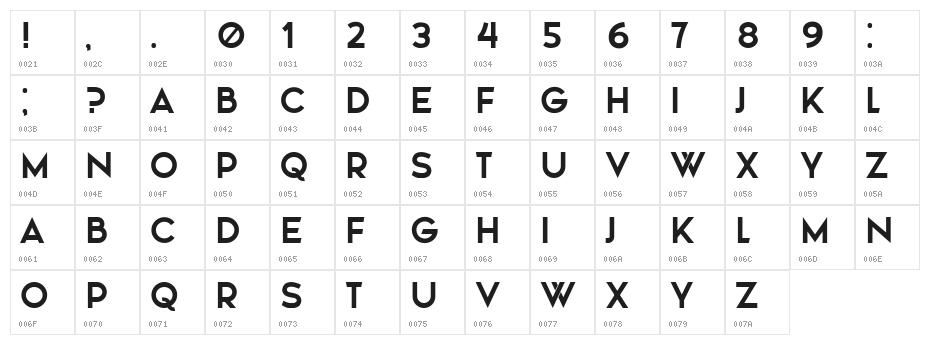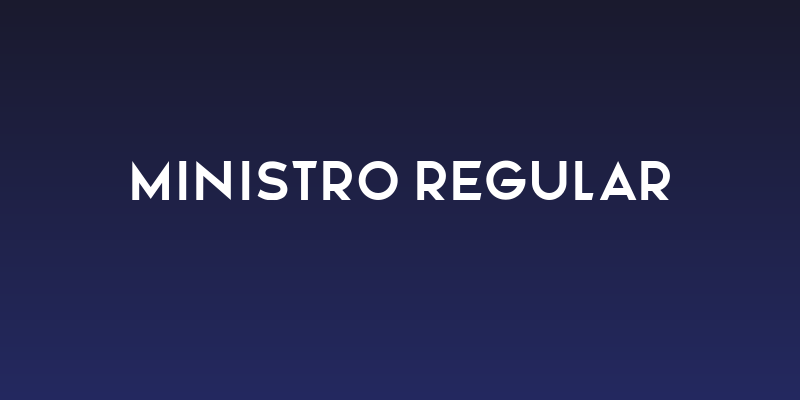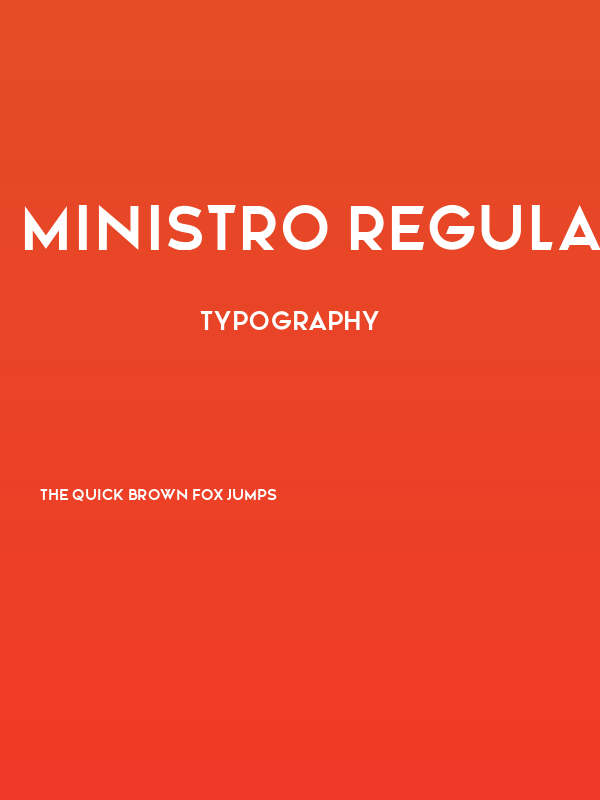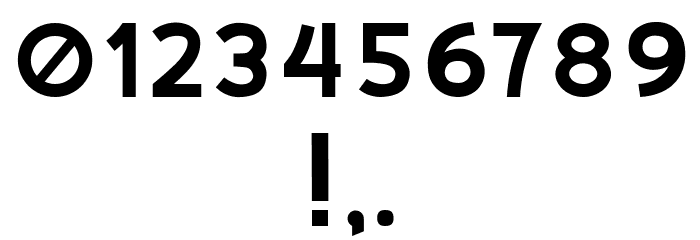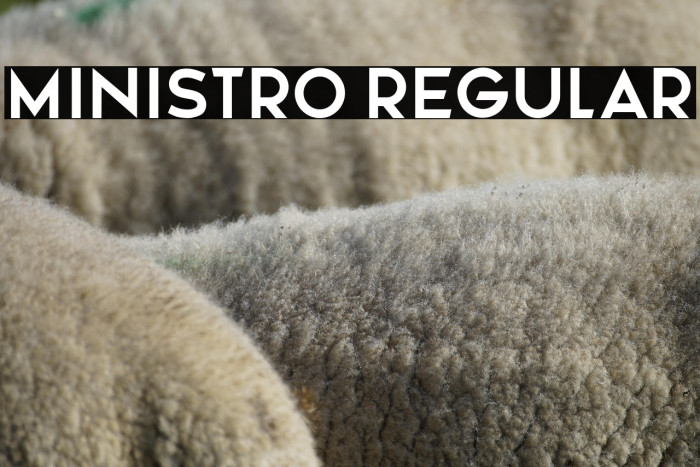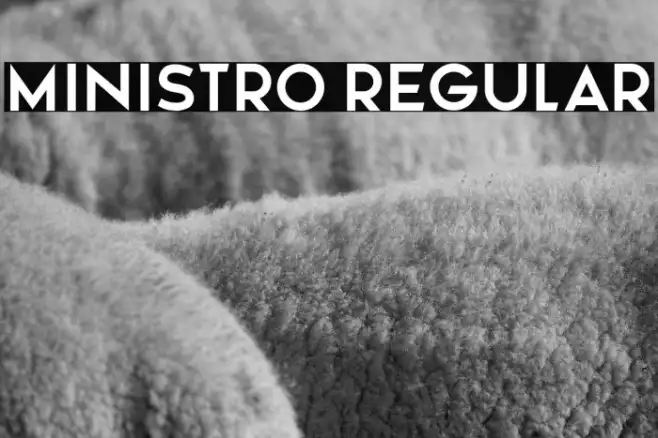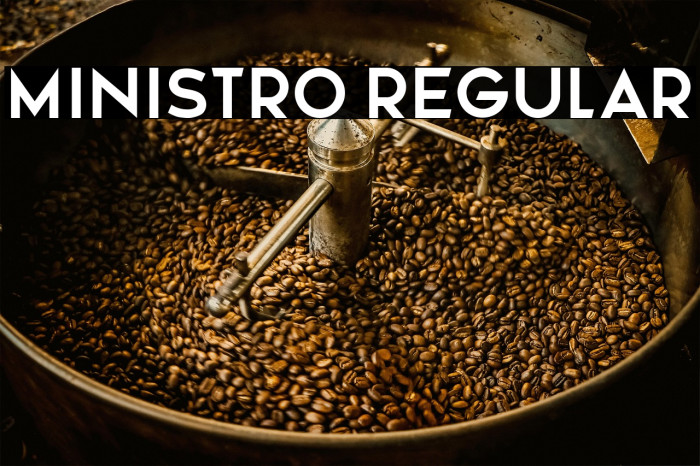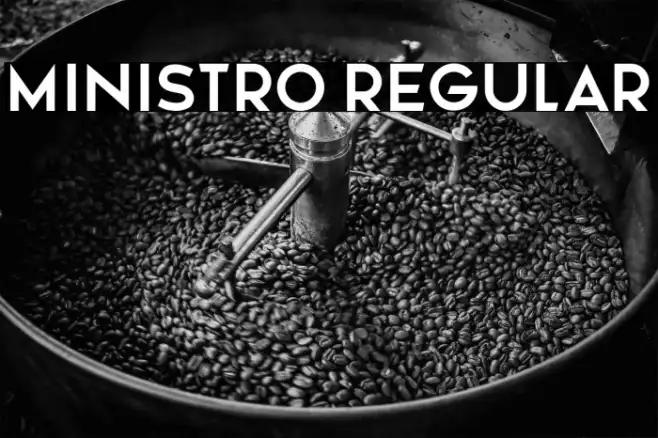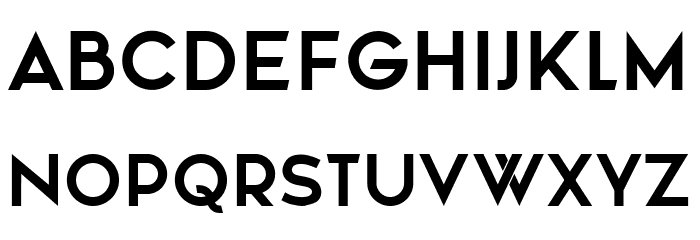
Ministro Regular Font
Ministro Regular Description
This typeface features a bold and geometric design, characterized by clean lines and a modern aesthetic. The uppercase letters are uniform in height, with sharp angles and a consistent stroke width that conveys a sense of strength and stability. The lowercase letters maintain the same geometric precision, offering a harmonious balance between the characters. The numerals are distinct and easily readable, with a circular zero that adds a unique touch. The special characters, including punctuation marks, are designed to complement the overall style, ensuring a cohesive look across all text elements. This font's simplicity and clarity make it versatile for various design applications.
MINISTRO-REGULAR UPPERCASE
MINISTRO-REGULAR LOWERCASE
MINISTRO-REGULAR OTHER CHARS
| Proposed Projects | Ideal for branding, headlines, posters, and digital media where a strong, modern presence is desired. |